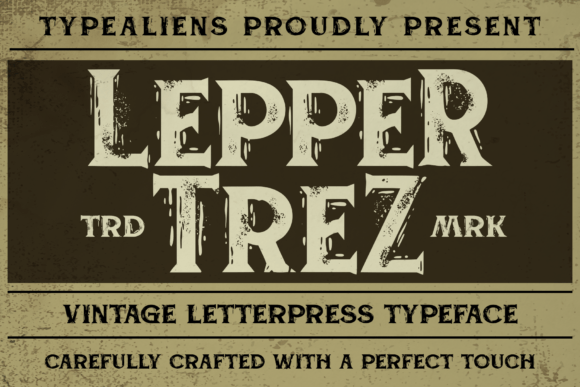
In a realm of digital design, where aesthetics and authenticity reign supreme, allow us to introduce you to Leppertrez Font, a typographic masterpiece crafted by the visionaries at typealiens. This display font is not merely a collection of letters; it's a gateway to a bygone era, where the charm of vintage printing techniques captivates the senses.
Imagine the allure of an antique letterpress machine, its intricate mechanisms breathing life into words and stories. Leppertrez Font embodies this nostalgic essence, imbuing your designs with a timeless aura of craftsmanship. Each glyph, meticulously etched with the soul of yesteryear, carries the weight of history, whispering tales of a time when printed matter held a tangible, almost magical quality.
With Leppertrez Font, you'll discover a font that transcends the ordinary, captivating your audience with its distinct character. Its serifs, reminiscent of delicate engravings, evoke a sense of elegance and sophistication, while the subtle imperfections, reminiscent of the patina of aged paper, add depth and texture to your designs.
Harness the power of Leppertrez Font to transport your audience to a world of nostalgia and charm. Craft logos that exude a timeless appeal, create posters that evoke a sense of history, or design invitations that carry the weight of tradition. The possibilities are endless, limited only by the boundaries of your imagination.
Embrace the beauty of the past with Leppertrez Font. Let your designs speak volumes, not just through words, but through the echoes of time captured within each character. Elevate your creative projects to new heights of sophistication, leaving an indelible mark on the minds of your audience.